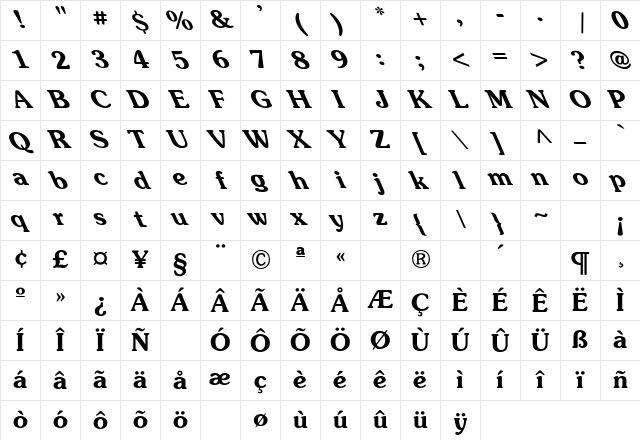
Souvenir-Light-Bold Lefites Regular
Design Context for Souvenir-Light-Bold Lefites
Souvenir-Light-Bold Lefites is a composed and adaptable typeface that performs quietly and consistently across a wide range of design contexts. Its bold stroke weight gives it real presence on the page.